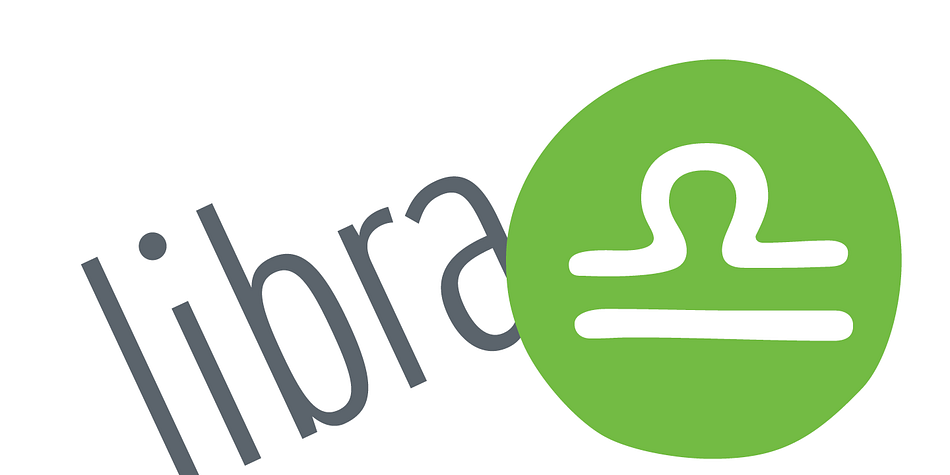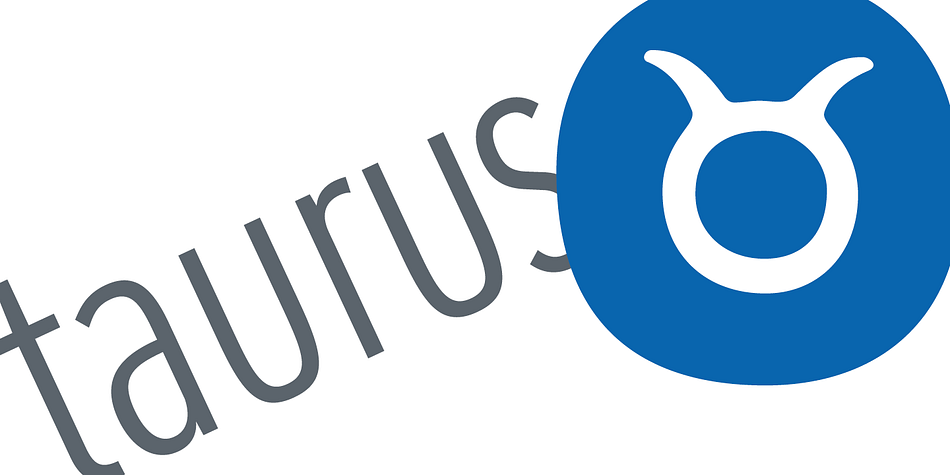
Starsigns
Designed by Donald Tarallo, Starsigns is a dingbat font published by Tarallo Design.
Starsigns is a unique set of zodiac symbols with a handmade feel.
This font includes twelve astrology symbols: Aquarius, Pisces, Aries, Taurus, Gemini, Cancer, Leo, Virgo, Libra, Scorpio, Sagittarius, and Capricorn. Additionally, it features a moon and a sun symbol. The symbols were created from watercolor originals, giving them a warm and fluid quality.